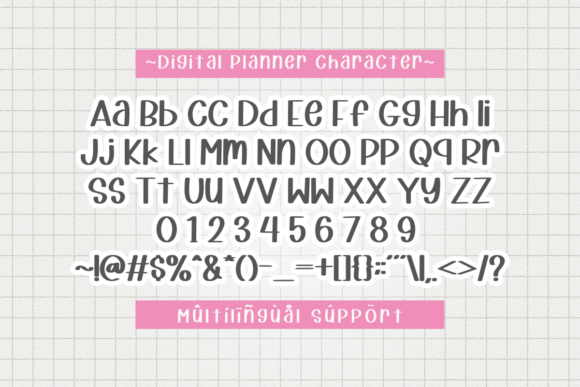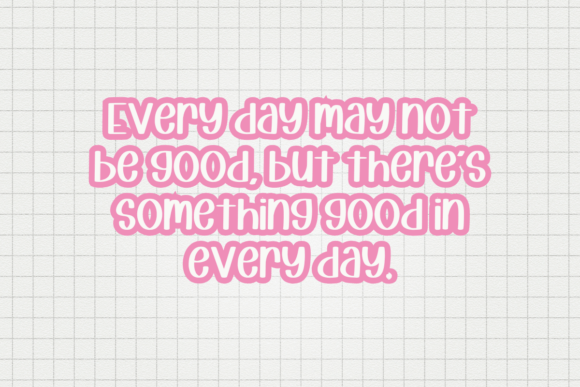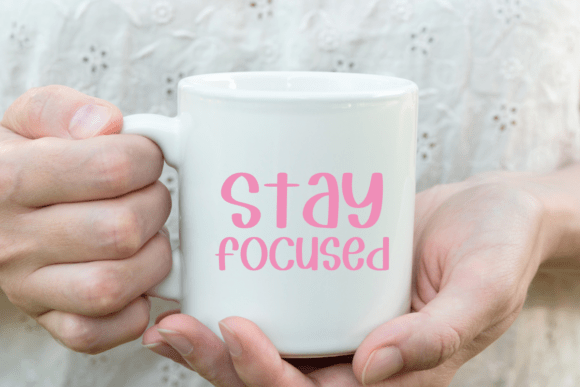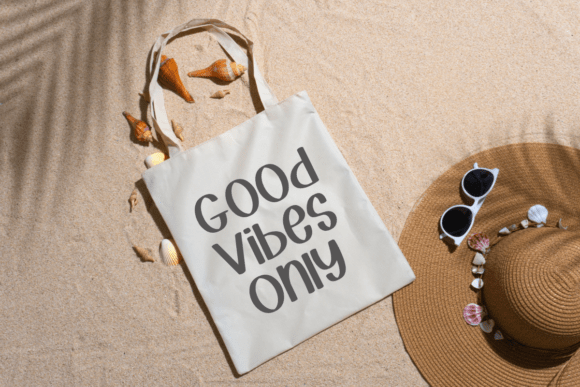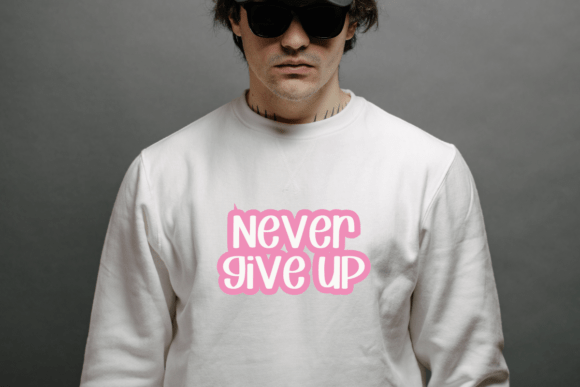
The Magic of Digital Planner Font: Adding Holiday Cheer to Your Designs
It’s that time of the year again – the holiday season is just around the corner, and with it comes the pressure to create stunning, festive designs. I still remember the year I was tasked with designing a Christmas card for a client’s family reunion. I spent hours scouring the internet for the perfect font, only to end up with a bland, generic sans serif that barely captured the spirit of the season. That was until I stumbled upon the Digital Planner font – a game-changer for any designer looking to add a dash of holiday cheer to their work.
A First Look: What Makes Digital Planner Font So Special?
Digital Planner is a festive and fun sans serif font that’s perfect for creating cards, invitations, and other holiday-themed graphics. Its playful curves and bold lines make it an instant attention-grabber, and its versatility ensures it can be used for a wide range of design projects.
An Honest Review: The Good, the Bad, and the Quirky
What I Love About Digital Planner Font ✨
- 🎉 Festive and fun design that’s perfect for the holiday season
- 🌈 Versatile and can be used for a wide range of design projects
- 💻 Works beautifully on both digital and print platforms
- ⚠️ Limited language support – best suited for English or similar languages
- 🤔 Some users may find the font too playful or informal for certain projects
Similar Fonts or Alternatives: When to Use Each
If you love Digital Planner font, you might also enjoy these similar fonts:
- Candy Cane: A sweet and festive script font perfect for holiday designs
- Snowflake: A delicate, cursive font ideal for winter wonderland-themed designs
- Jingle: A bold, sans serif font with a fun, playful vibe
- Frosty: A cool, modern sans serif font perfect for winter-themed designs
The Story Behind Digital Planner Font: Designer Inspiration
Digital Planner font was designed with the holiday season in mind. The designer, inspired by the magic of Christmas and the joy of giving, set out to create a font that would capture the spirit of the season. With its playful curves and bold lines, Digital Planner font is the perfect tool for designers looking to add a dash of holiday cheer to their work.
Q: What type of designs is Digital Planner font best suited for?
A: Digital Planner font is perfect for creating holiday-themed graphics, such as Christmas cards, invitations, and social media posts.
Q: Is Digital Planner font available in different languages?
A: Currently, Digital Planner font has limited language support, best suited for English or similar languages.
Q: Can I use Digital Planner font on both digital and print platforms?
A: Yes, Digital Planner font works beautifully on both digital and print platforms, making it a versatile addition to your design toolkit.